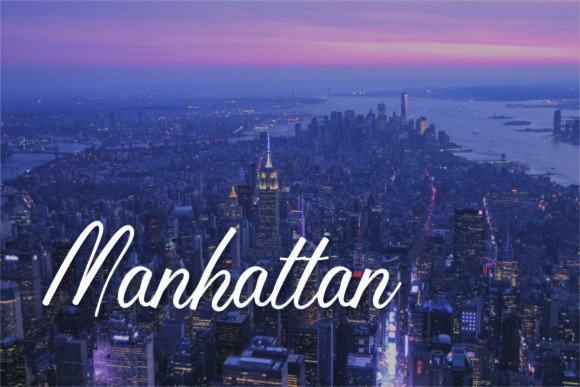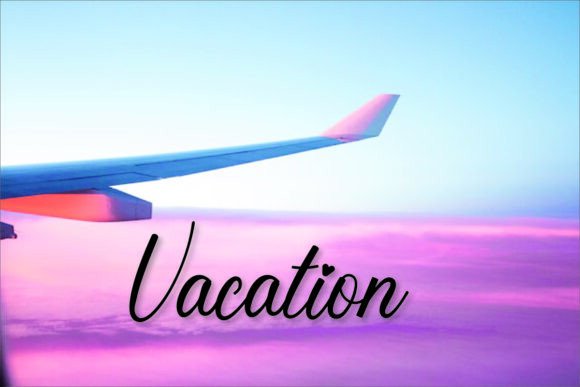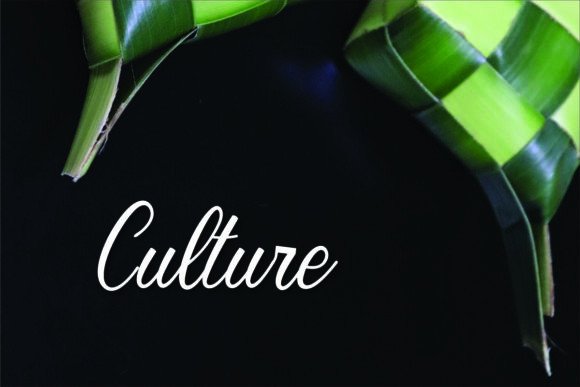
Introduction to Jhonny Casual Font
Have you ever been in the midst of a creative project, staring at a blank page, and suddenly you need that perfect font to bring your vision to life? That’s exactly what happened to me last week while working on a branding campaign. I was searching for a font that would add a touch of elegance and sophistication, and that’s when I stumbled upon the Jhonny Casual Font.
This trendy handwritten font is more than just a design resource – it’s a game-changer. With its contemporary atmosphere and impeccable form, inspired by timeless classic calligraphy, the Jhonny Casual Font is the perfect addition to any high-quality design project. Whether you’re working on a free download or a paid project, this font will elevate your work to the next level.
Key Features of Jhonny Casual Font
- Unique, casual font design ideal for creative projects, such as advertisements, posters, and social media graphics.
- Perfect for creating a relaxed, casual atmosphere in your design projects.
Honest Review: Jhonny Casual Font
As a designer, I’m always on the lookout for high-quality design resources to enhance my creative projects. Recently, I had the chance to try out the Jhonny Casual Font, and I’m excited to share my honest review with you.
Here’s what works well: ✨ The font is incredibly versatile and can be used for a wide range of applications, from casual blogs to social media graphics. It’s also incredibly easy to read, even on smaller screens.
However, there are a few limitations to consider: ⚠️ The font only comes in a few weights, which may limit its use in certain applications. Additionally, the font may not be suitable for formal or professional projects due to its casual nature.
Overall, I’m impressed with the Jhonny Casual Font and would definitely recommend it to designers looking for a fun and versatile font for their creative projects.
Jhonny Casual Font is perfect for a variety of creative projects, including social media graphics, blog posts, and marketing materials. Its unique style and transparent background make it ideal for designs that require a touch of elegance and sophistication.